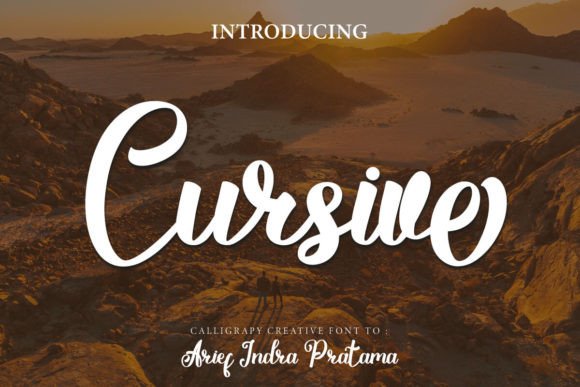
The Elegance of Cursive Font: A Timeless Typographic Masterpiece
Cursive font is a typographic masterpiece that has captured the hearts of designers and crafters alike. With its gentle strokes and meticulous details, each letter seems to dance on the page, as if ink is unfolding with elegance and poise. This beautiful font is a perfect blend of calligraphy expertise and artistic aesthetics, making it a popular choice for various design projects.
A Unique Blend of Classical and Modern Elements
The distinctive style of cursive font merges classical calligraphy elements with a modern touch, resulting in a unique and captivating impression. Every curve of the letters is meticulously crafted, forming a series of characters that engage the eye and spark the imagination. This font is not just a typographic style; it’s a visual experience that captivates and inspires.
Striking the Perfect Balance
One of the standout features of cursive font is its ability to strike the perfect balance between creativity and readability. While it boasts a unique and artistic style, it remains easy to read and understand. This makes it an excellent choice for designers who want to add a personal touch to their projects without compromising on clarity.
A Timeless Allure
Cursive font radiates a timeless allure that makes it suitable for a wide range of design projects. Whether you’re working on a wedding invitation, a greeting card, or a design project that prioritizes beauty and uniqueness, this font is an excellent choice. Its classic style ensures that it will never go out of fashion, making it a valuable addition to any designer’s toolkit.
Adding a Personal Touch
The colors and nuances within each character of cursive font create an enchanting and warm ambiance. This font is well-suited for projects that demand a personal touch, such as:
• Wedding invitations: Add a touch of elegance and sophistication to your wedding invitations with cursive font.
• Greeting cards: Create beautiful and heartfelt greeting cards with cursive font.
• Design projects: Use cursive font to add a personal touch to your design projects, such as brochures, posters, and flyers.
Why Designers and Crafters Love Cursive Font
Designers and crafters love cursive font for its unique and captivating style. Here are some reasons why:
• Unique style: Cursive font has a distinctive style that sets it apart from other typographic styles.
• Elegance and sophistication: Cursive font exudes elegance and sophistication, making it perfect for high-end design projects.
• Readability: Despite its artistic style, cursive font remains easy to read and understand.
• Versatility: Cursive font can be used for a wide range of design projects, from wedding invitations to design projects.
Font Name Cursive Font
Author Arief Indra Pratama
Cursive font is a typographic masterpiece that has captured the hearts of designers and crafters alike. With its gentle strokes, meticulous details, and timeless allure, it’s perfect for adding a personal touch to various design projects. Whether you’re working on a wedding invitation, a greeting card, or a design project, cursive font is an excellent choice. Its unique style, elegance, and readability make it a valuable addition to any designer’s toolkit.